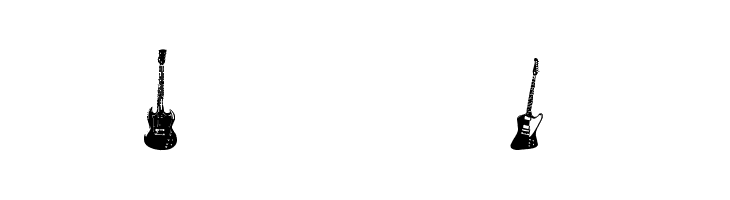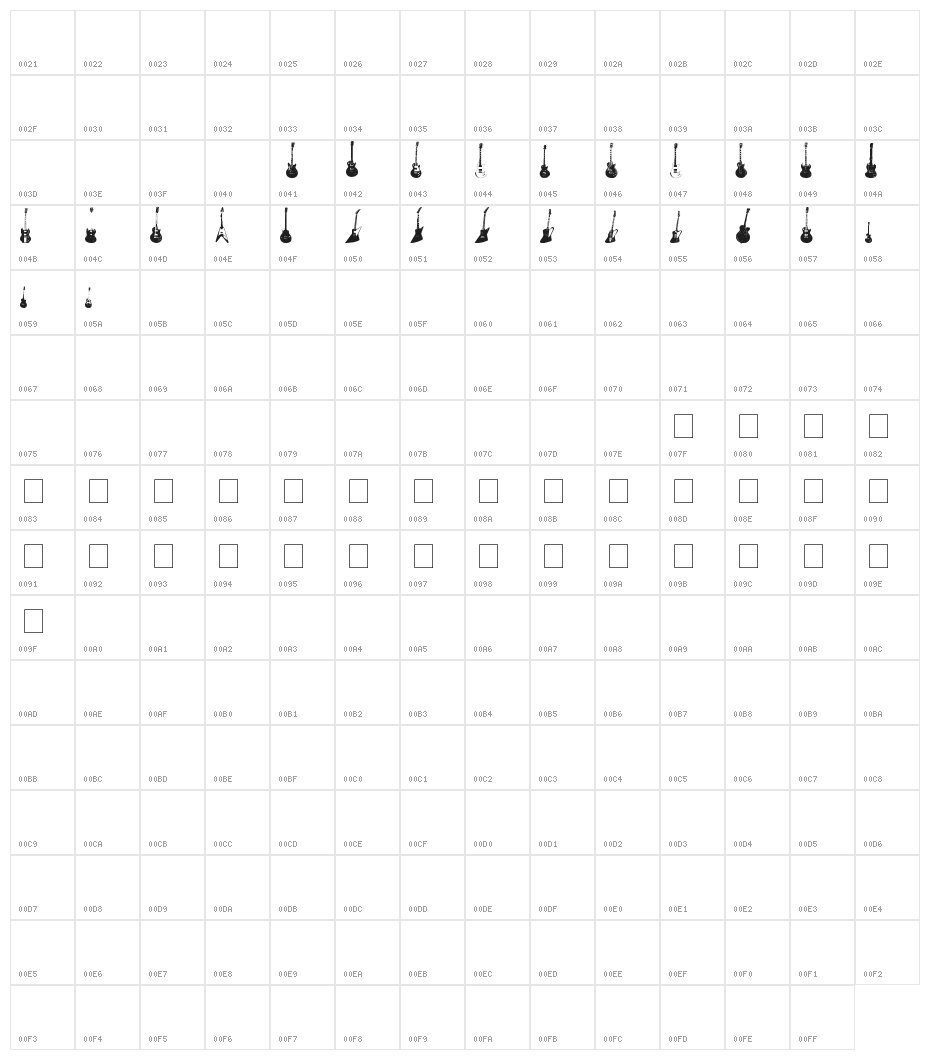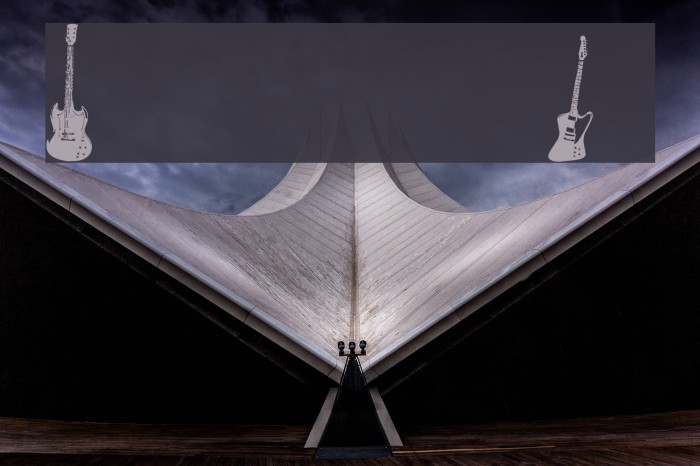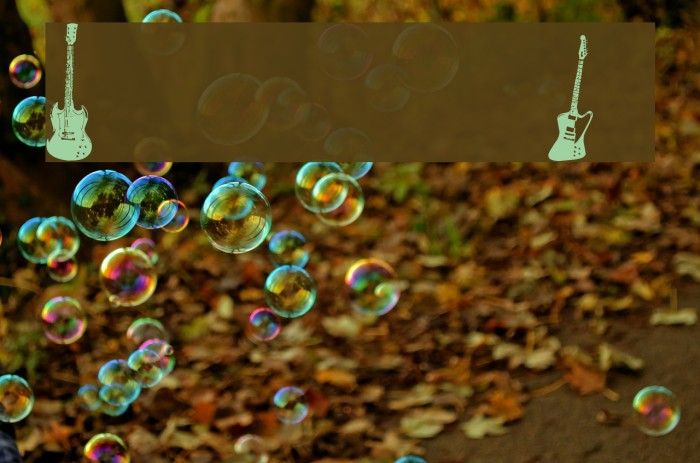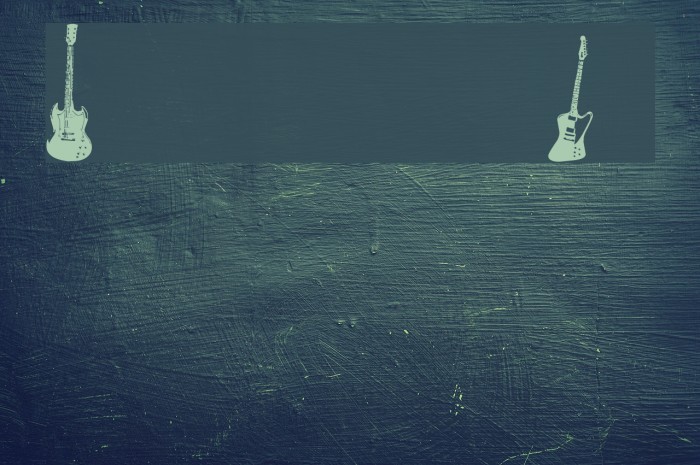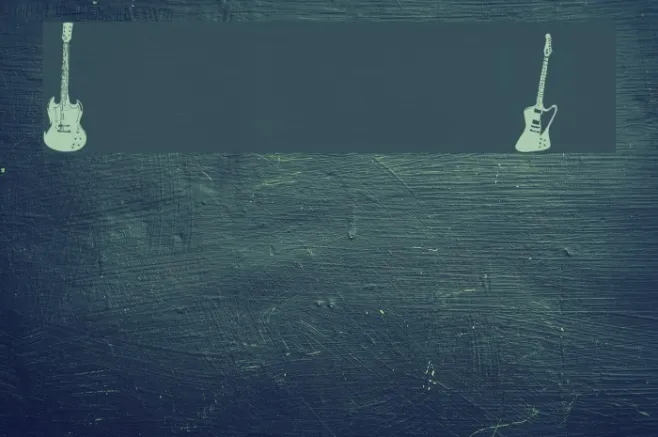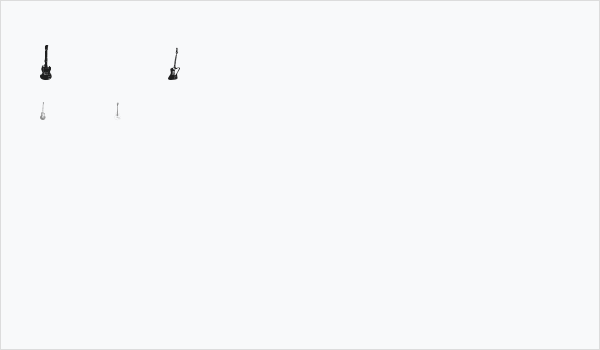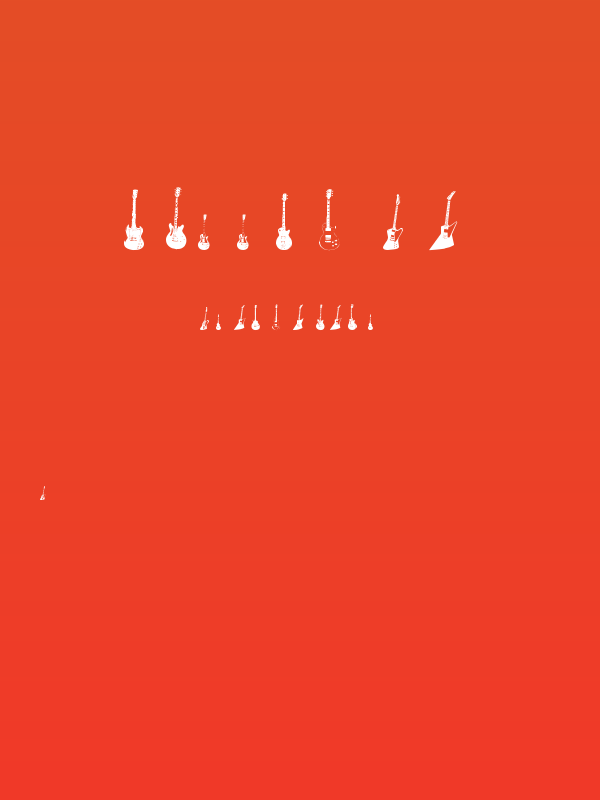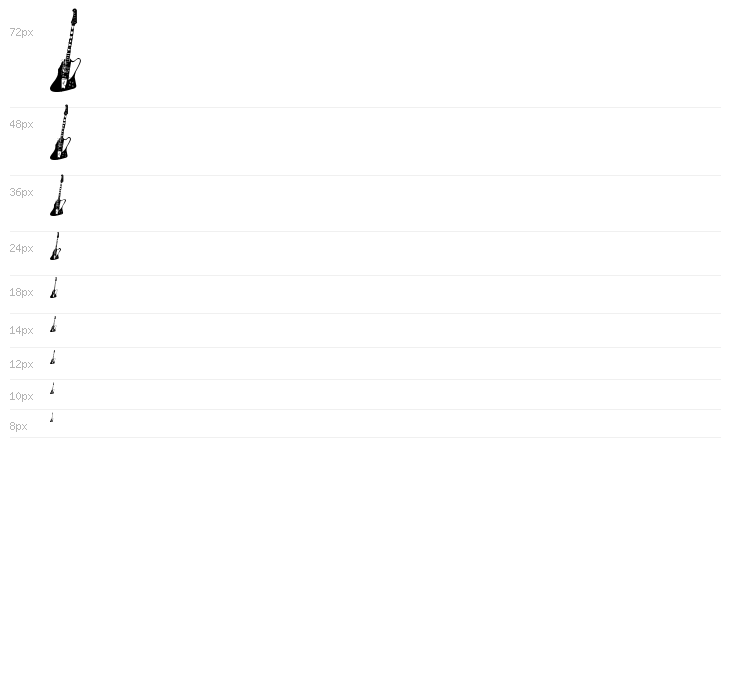
Jazzed Up Font
Jazzed Up Description
A decorative display font composed of various electric guitar silhouettes representing each character, with strong black-and-white contrast and playful, music-themed shapes.
| Overall Style | Decorative, Playful, Thematic |
| Proposed Projects | Music event posters, album covers, band logos, themed party invitations, music merchandise. |